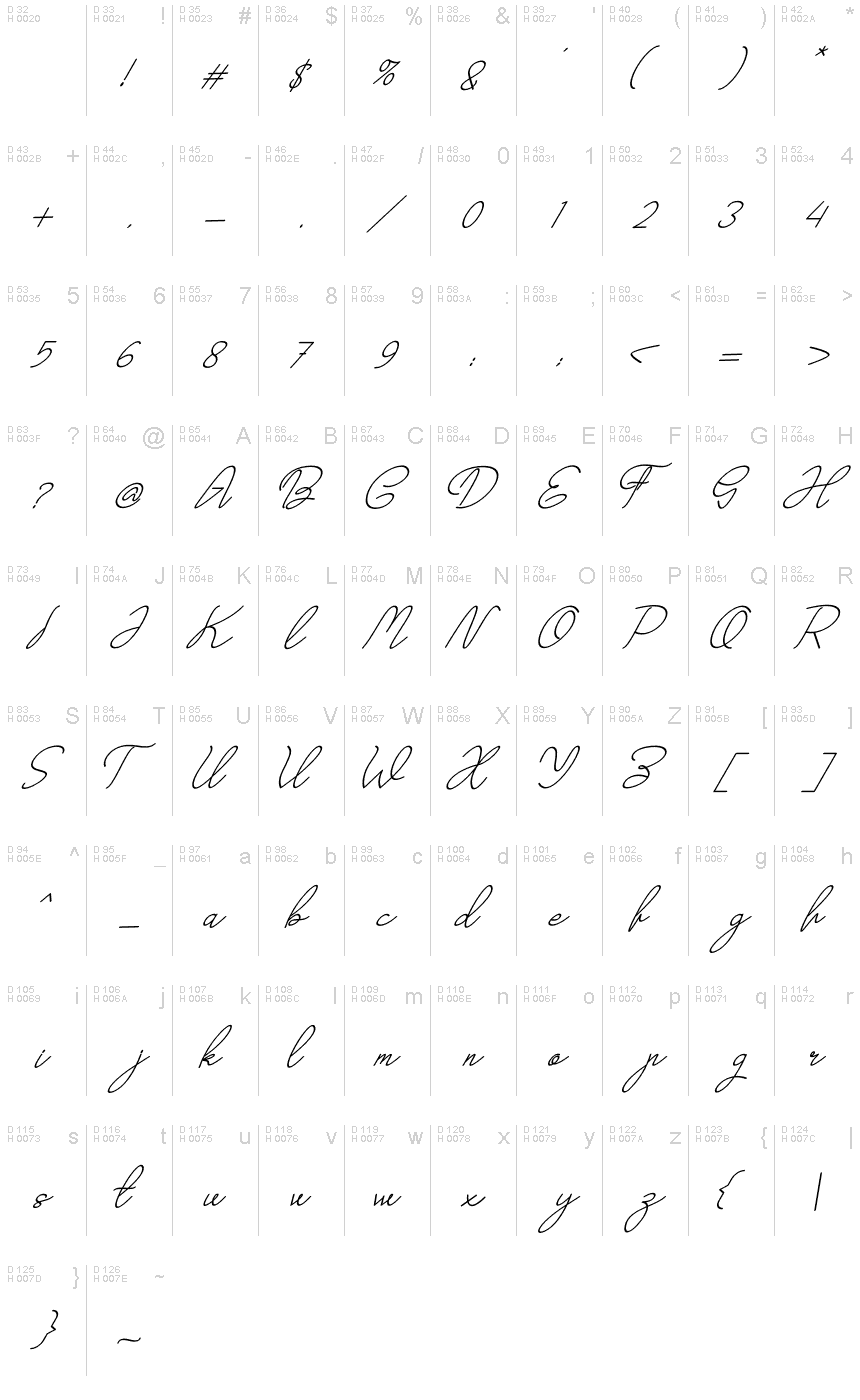
Dead Heart Italic
Dead Heart Italic, a stunning handwritten font from the talented Design Vector10, brings a touch of elegance and sophistication to any project. With its light weight and flowing script, this font is perfect for creating beautiful invitations, wedding stationery, and even book covers. Its unique style also makes it suitable for branding projects or adding a personal touch to social media graphics. Whether you're looking to add some flair to your design work or create something truly special, Dead Heart Italic is the perfect choice for your next project.